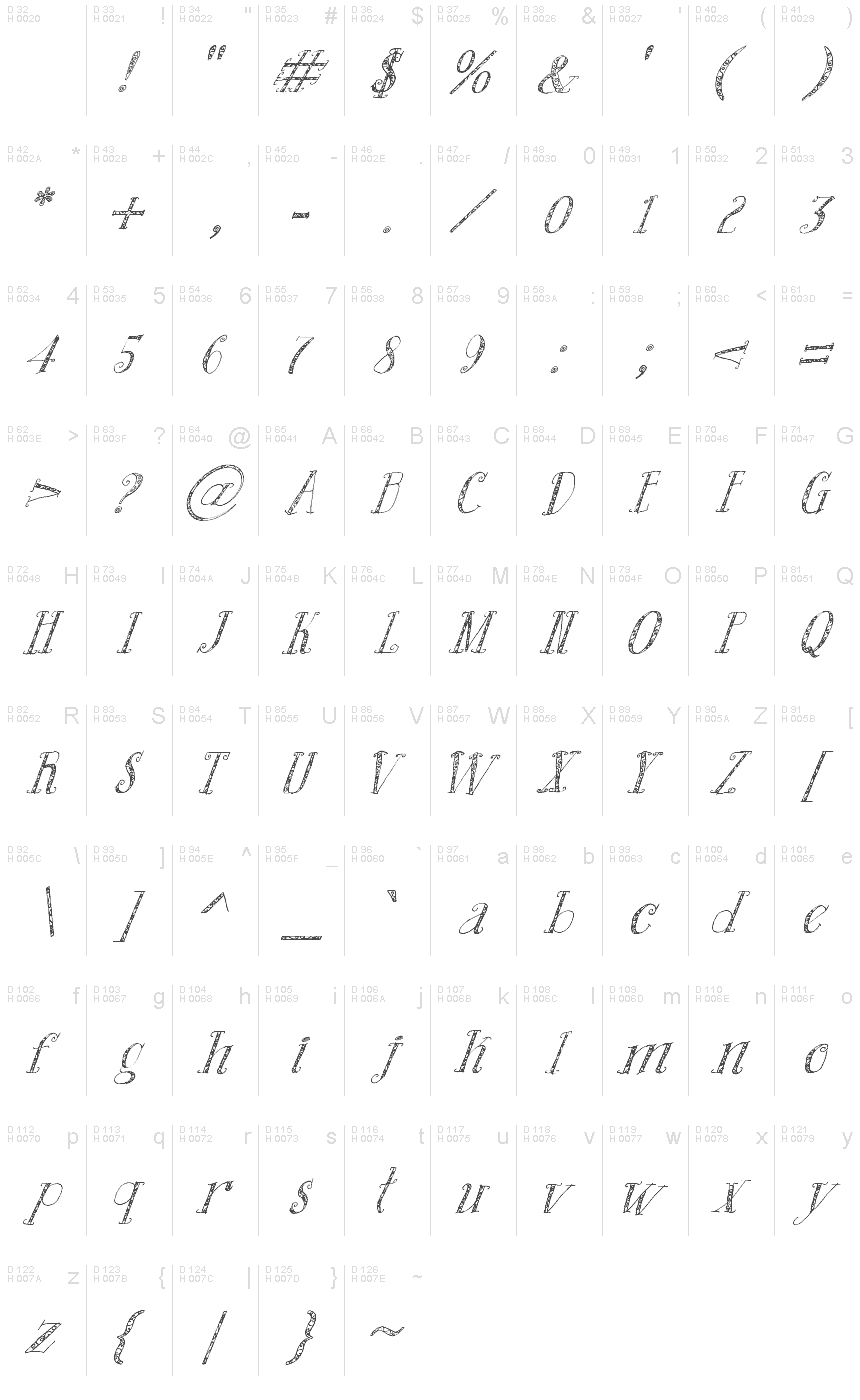
Bad King Italic
Bad King Italic font designed by Galdino Otten Fonts is an elegant and highly decorative primarily display typeface with a condensed width. Its whimsical and vintage-inspired appearance makes it quite unique, making it very likely to be noticed from the first glance. Textured embellished letters feature calligraphic influence and look ornate for the most stylish compositions.